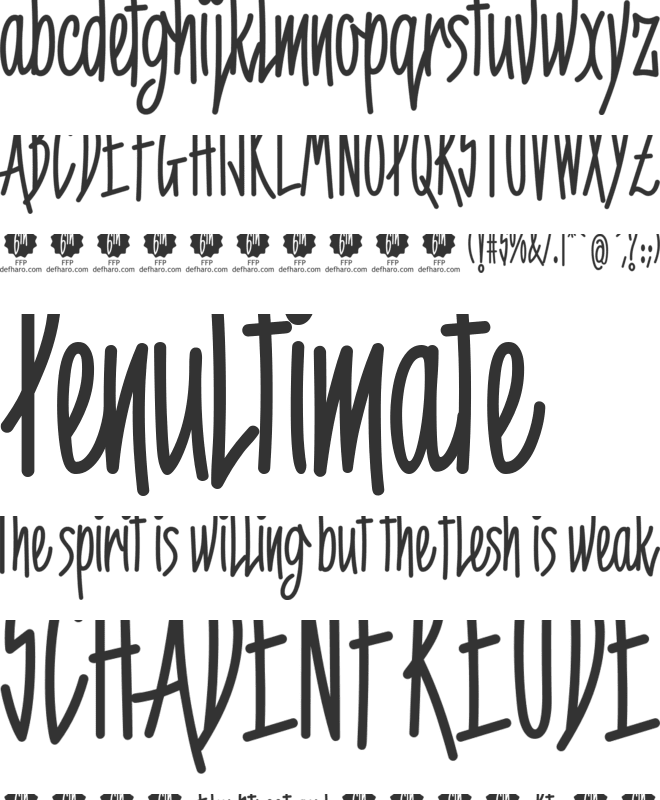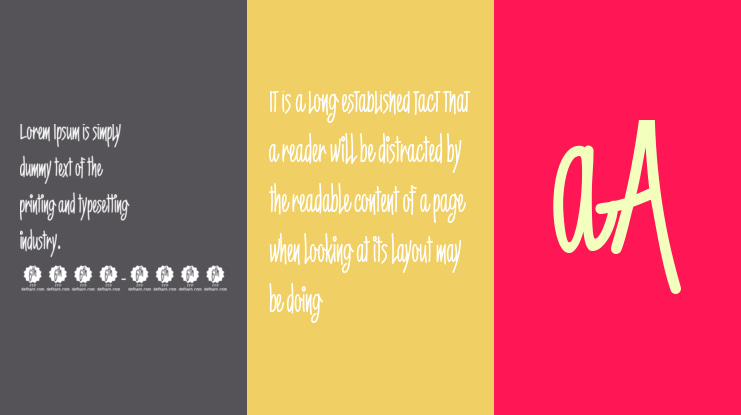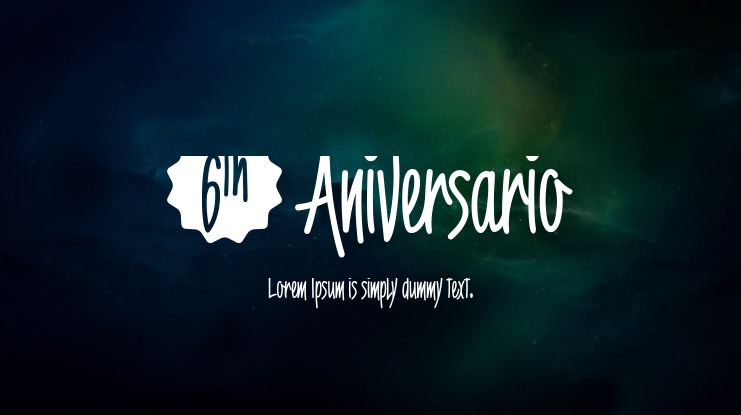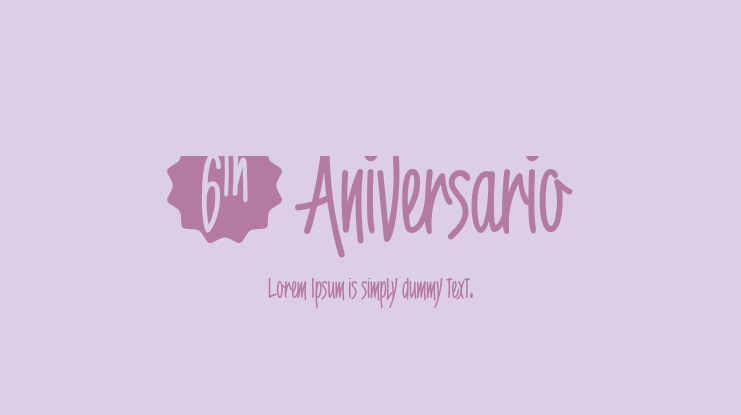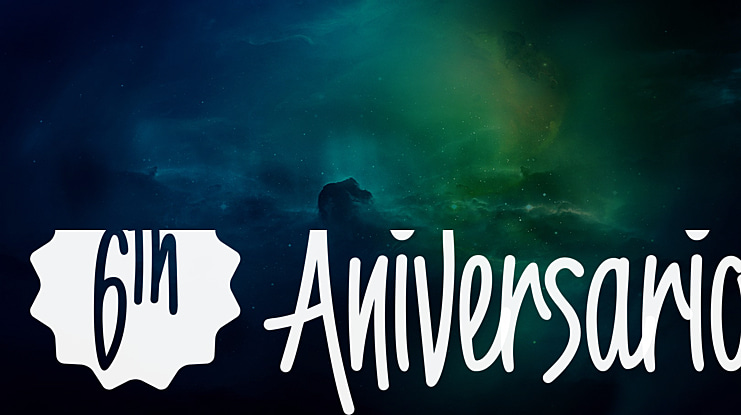
6th Aniversario Font
6th Aniversario is a rounded condensed typography, handwritten and elegant, perfect for writing good advertising titles in graphic design of posters, flyers or publications in general where space saving and readability is required. Includes the Bitcoin symbol.
- OpenType Functions: Fractions, Alternate Annotation Forms, All Alternates, Superscript, Superiors, Slashed Zero, Superior letters, Localized Forms, Numbers Small Caps, Inferiors, Scientific Inferiors, Discretionary Ligatures, Numerators, Standard Ligatures, Subscript, Extended Fractions, Ordinals, Denominators, Oldstyle Figures, Historical Forms.